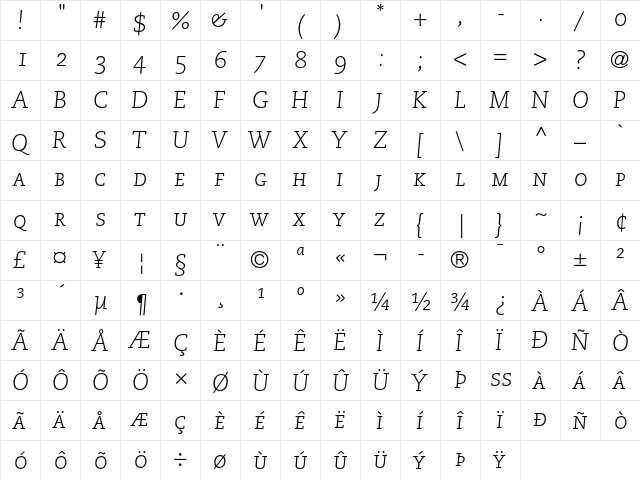
PMN Caecilia 46 Light Italic SC
Design Context for PMN Caecilia Typeface
PMN Caecilia offers clean, dependable letterforms without strong stylistic allegiance, making it a practical choice for designers who need flexibility. The slanted form adds forward momentum and visual energy. Its slender proportions lend an understated elegance to any composition.
Pro Tip: Try PMN Caecilia for annotation and caption copy alongside an upright companion — the contrast in angle creates a dynamic but ordered typographic system.